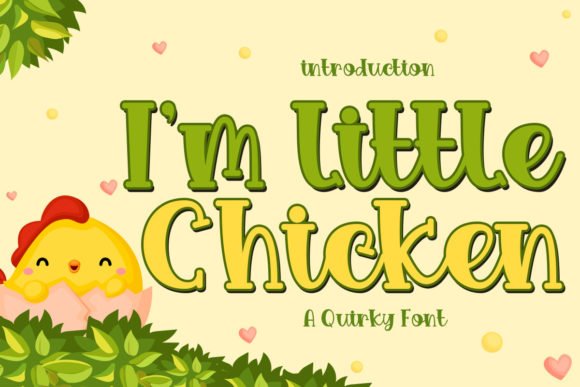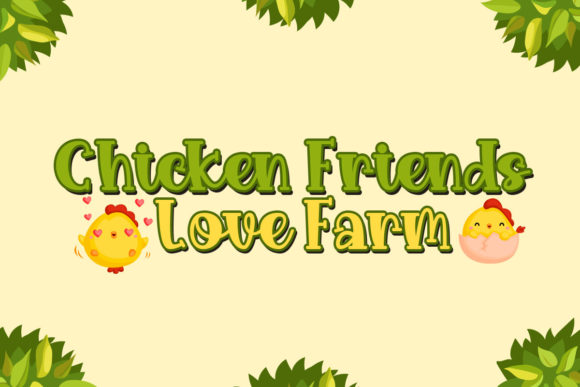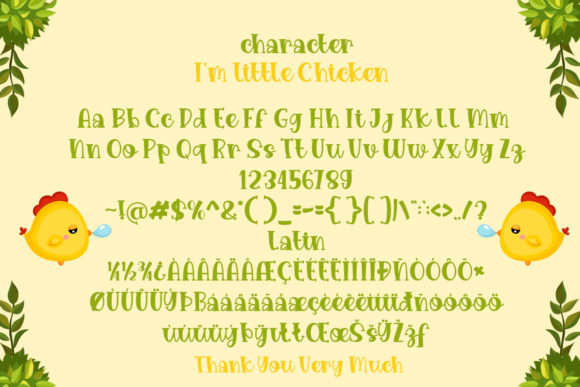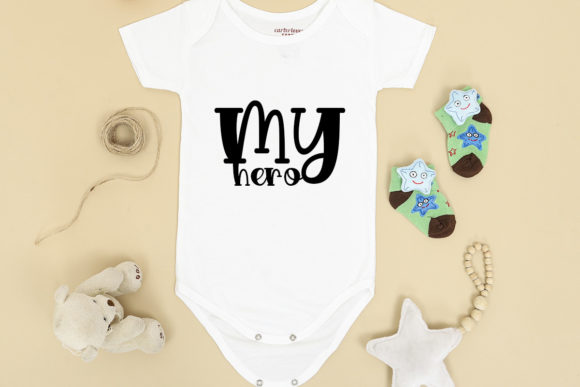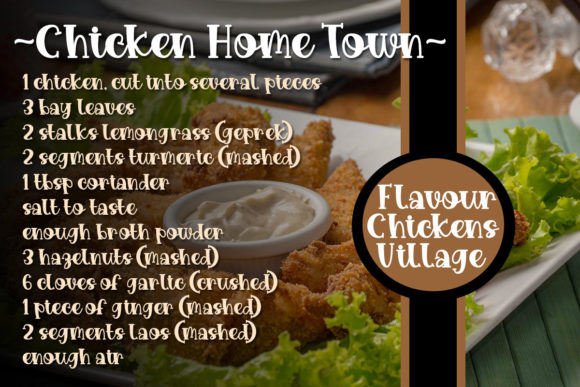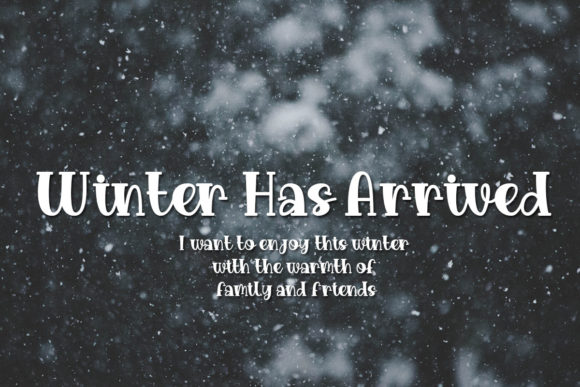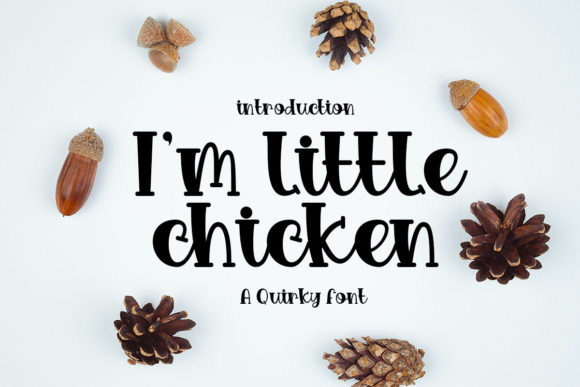
Clucking Good Typography: The Charm of I’m a Little Chicken Font
Have you ever stared at a blank page, struggling to find the perfect font to bring your creative vision to life? We’ve all been there. But what if we told you that there’s a font out there that’s as adorable as it is functional? Enter I’m a Little Chicken Font, a delightful serif font that’s sure to crack a smile on your face.
This charming font is more than just a pretty face – it’s a versatile tool that can add a touch of whimsy to any project. From children’s storybooks to food product packaging, I’m a Little Chicken Font is the perfect companion for designers looking to create something truly special. Its friendly and inviting look makes it a valuable asset for any creative project, and its quirky characters are sure to delight both kids and adults alike.
I’m a Little Chicken Font Key Features
- Font Family: A playful and whimsical font designed specifically for children’s content.
- Font Size: Supports font sizes ranging from 8 to 72 points, making it suitable for various design applications.
- Unique Characteristics: Features a distinctive chicken character and fun, cursive letterforms that add a touch of whimsy to any design.
I’m a Little Chicken Font Review
Overall, I think this font is quite charming ✨. The playful, whimsical feel of it is perfect for children’s books, nursery decor, or any project that needs a touch of cuteness. The font is quite versatile, and its different styles and sizes can add a lot of depth to a design.
The font’s custom illustrations and unique character designs are also a major plus ✨. The attention to detail and the care that went into creating each character is evident, making it a great choice for any project that needs a personal touch.
- Playful and whimsical feel
- Custom illustrations and unique character designs
- High level of customization options
- Perfect for children’s books, nursery decor, and other projects
- May not be suitable for professional or formal projects
- Some users may find the font too childish or cutesy
- Lack of bold weight options
In conclusion, I think “I’m a Little Chicken Font” is a great choice for projects that need a playful and whimsical touch. However, it may not be the best fit for more formal or professional projects ⚠️.
Tips for Getting the Most Out of ‘I’m a Little Chicken Font’
To maximize the use of ‘I’m a Little Chicken Font’, experiment with different font sizes, colors, and styles. Use it for titles, headings, and body text to create a unique and playful design. This font is ideal for children’s book covers, nursery decorations, and other projects that require a whimsical touch.
‘I’m a Little Chicken Font’ is commonly used for:
– Children’s book covers
– Nursery decorations
– Party invitations
– Educational materials
Alternatives to “I’m a Little Chicken Font” for Designers
Great Vibes is a modern, cursive font suitable for headings, titles, and short paragraphs. It’s ideal for designs that require a touch of elegance and sophistication. Compared to “I’m a Little Chicken Font”, Great Vibes is more polished and refined, making it suitable for high-end designs.
Lobster is a fun, cursive font often used for headings, titles, and short paragraphs. It’s perfect for designs that require a playful and approachable tone. Unlike “I’m a Little Chicken Font”, Lobster is more versatile and can be used in a wide range of designs, from casual to formal.
Carolyna Pro is a elegant, cursive font suitable for headings, titles, and short paragraphs. It’s ideal for designs that require a touch of sophistication and refinement. Compared to “I’m a Little Chicken Font”, Carolyna Pro is more formal and polished, making it suitable for high-end designs and luxury brands.
Alex Brush is a elegant, cursive font suitable for headings, titles, and short paragraphs. It’s ideal for designs that require a touch of sophistication and refinement. Compared to “I’m a Little Chicken Font”, Alex Brush is more refined and polished, making it suitable for high-end designs and luxury brands.